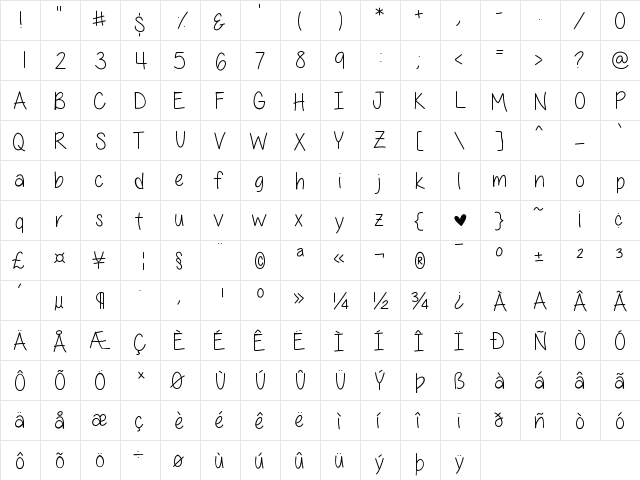
AllThingsPink ThingsPink
Design Context for AllThingsPink Typeface
AllThingsPink takes a measured approach to typography — its balanced proportions and neutral character make it a reliable workhorse for both digital and print work. The delicate stroke weight brings airiness and refinement to layouts.
Pro Tip: Use AllThingsPink in both headline and body roles to test its range before committing to a single application.